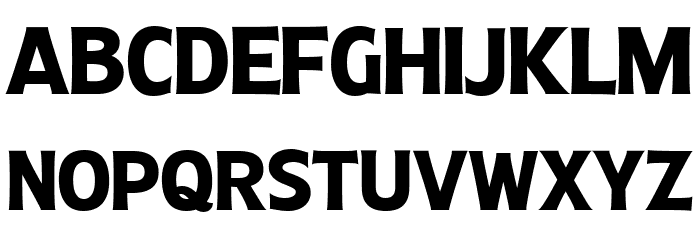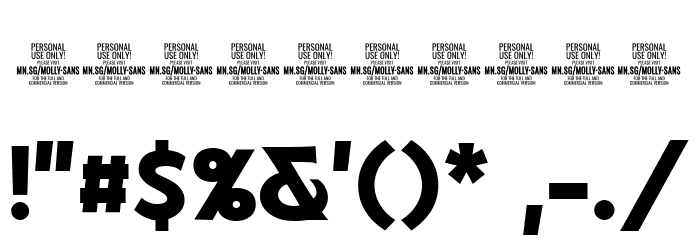
MollySansCPERSONAL-Bold Font
This font features bold, thick strokes with a strong presence, making it ideal for attention-grabbing designs. The characters are slightly condensed, giving it a compact look while maintaining readability. The uppercase and lowercase letters are well-proportioned, with a consistent stroke weight throughout. The font includes a full set of numerals and a variety of special characters, making it versatile for different design needs. Its bold nature and clean lines make it suitable for modern and impactful designs.
A bold, condensed font with strong, clean lines and excellent readability.
- Proposed Projects: Ideal for headlines, posters, branding materials, and any project requiring a bold statement.